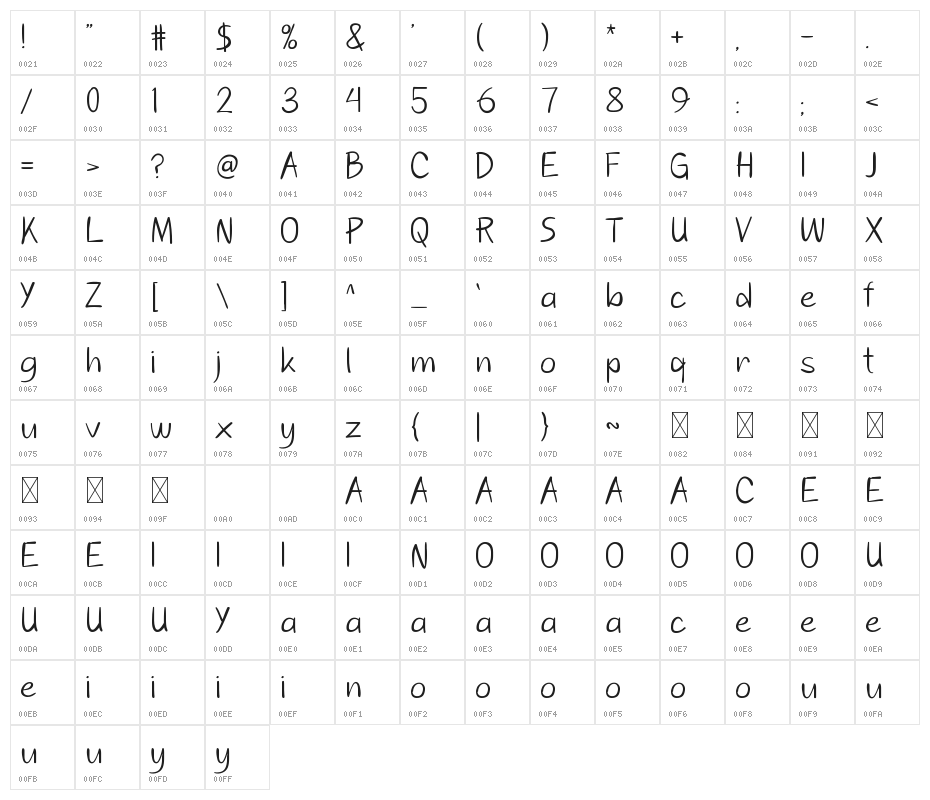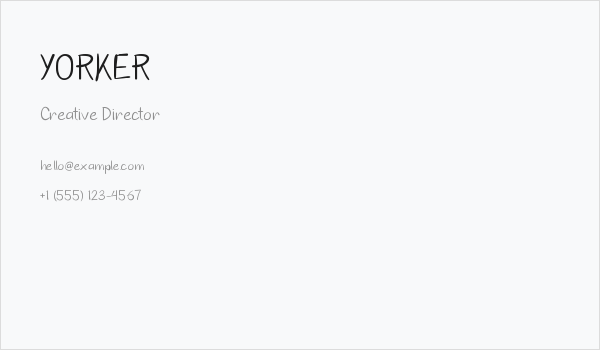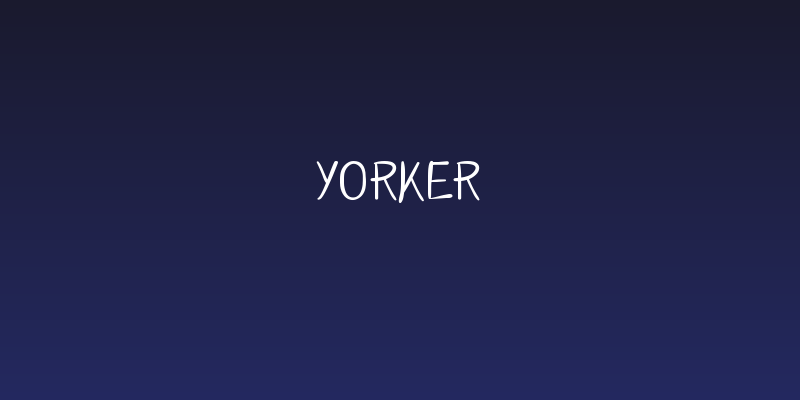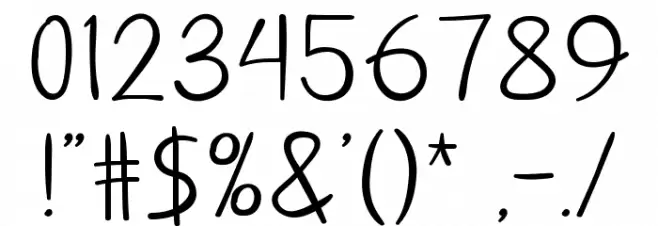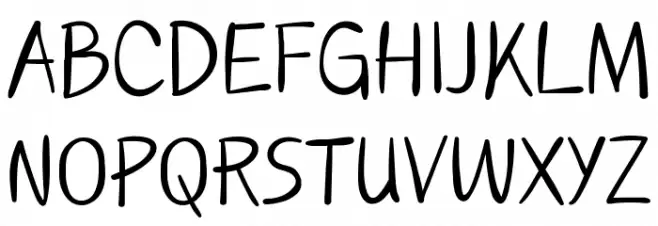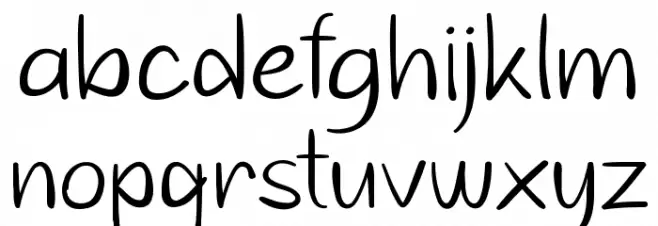
YORKER Font
YORKER Description
A casual, handwritten style font with a playful and informal appearance, featuring slightly irregular strokes and a friendly vibe.
| Overall Style | Casual, Playful, Friendly |
| Use Case | Headlines, Body text, Invitations, Personal projects |